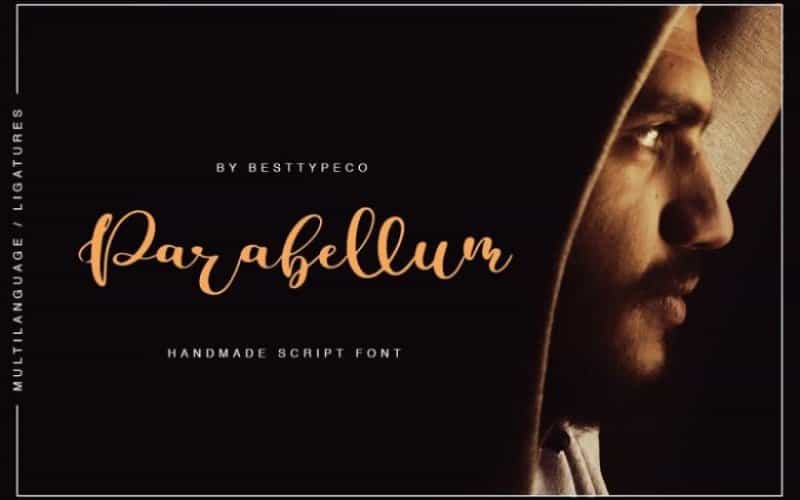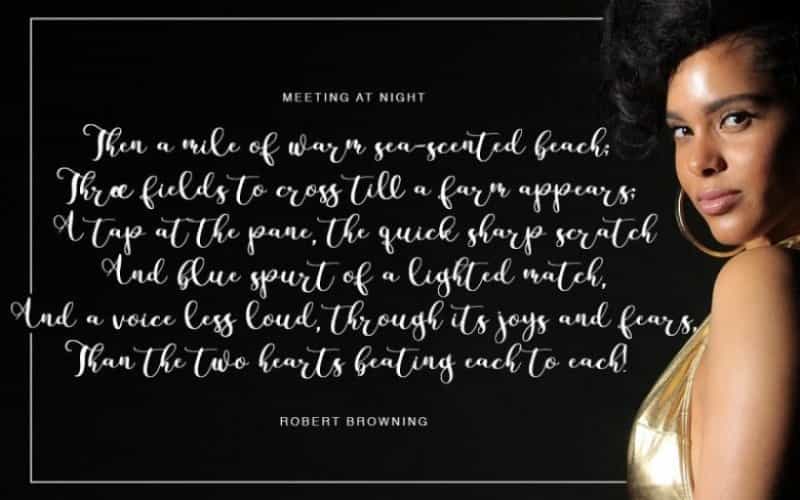
Discover Parabellum Brush Font, part of the Brush collection—a versatile and unique font perfect for adding a personal touch to your projects. Download it for free and enjoy crafting designs with style, from invitations to social media posts. This font is available exclusively for personal use, giving you the freedom to create without limits. Unlock your creativity with Parabellum Brush Font today!
Parabellum – a new fresh handmade calligraphy font. Very suitable for greeting cards, branding materials, business cards, quote, posters, and more!This font is perfect for a wedding postcard. Or you can create a perfect and unique design of your logo, blog, stationery, marketing, magazine, and more